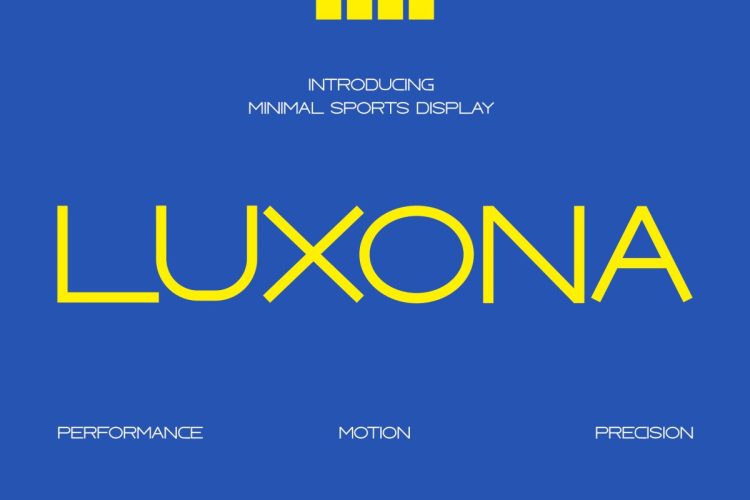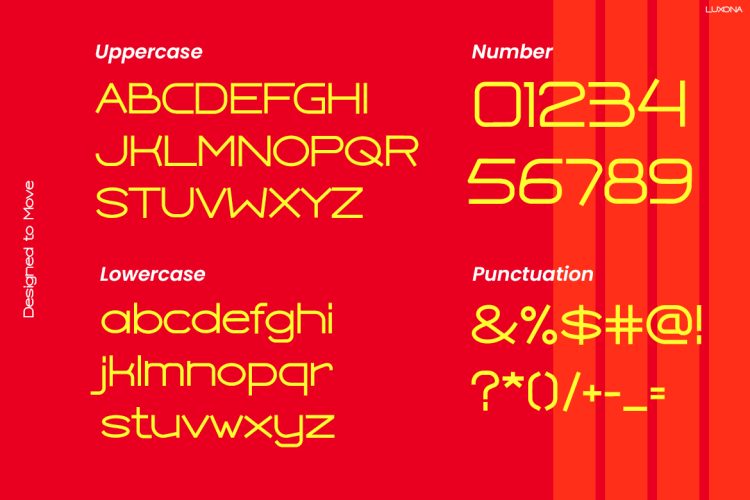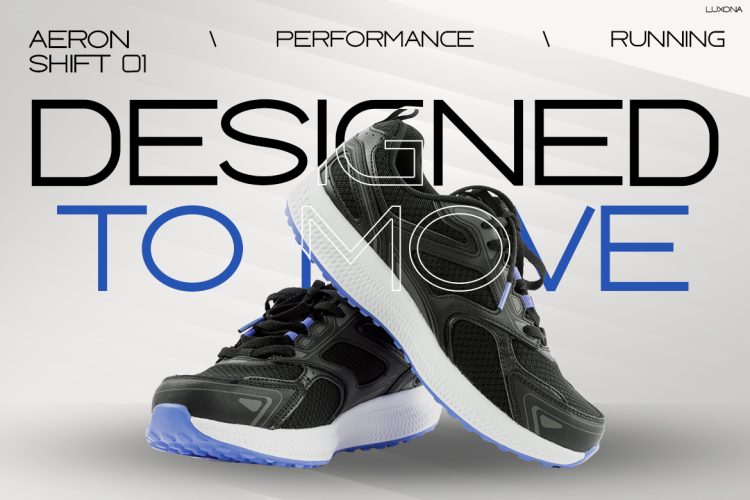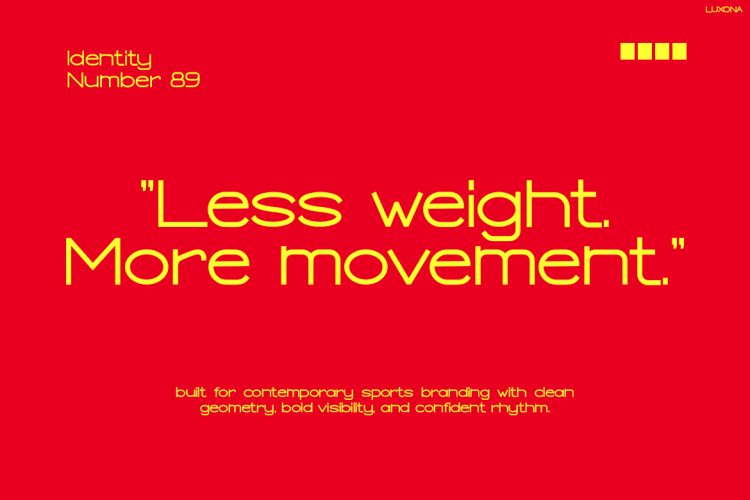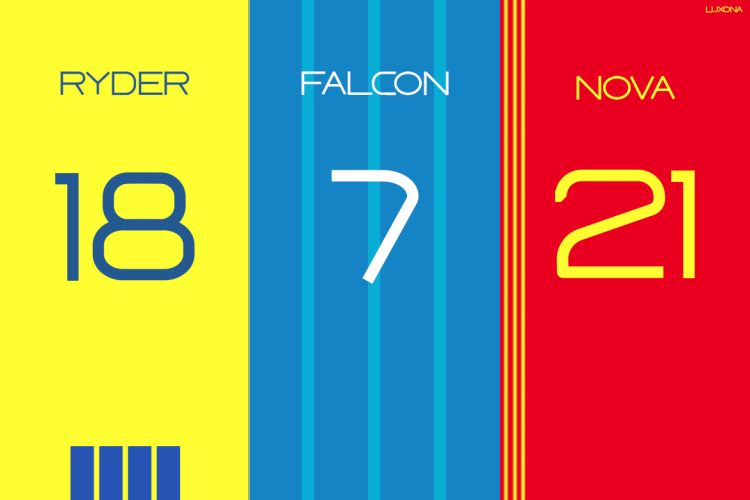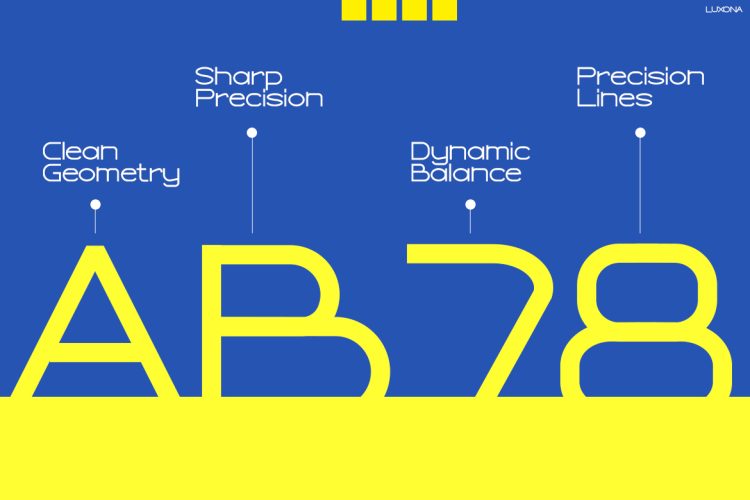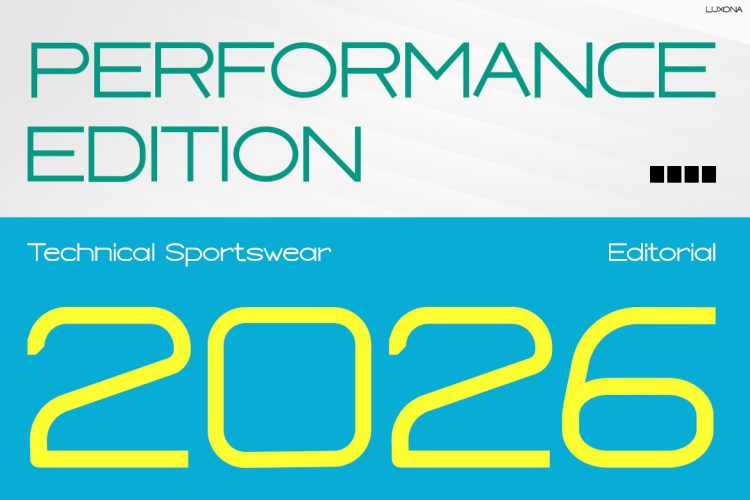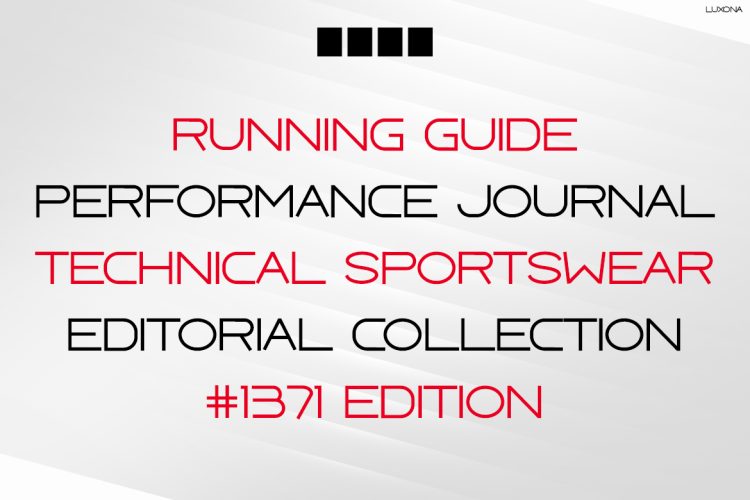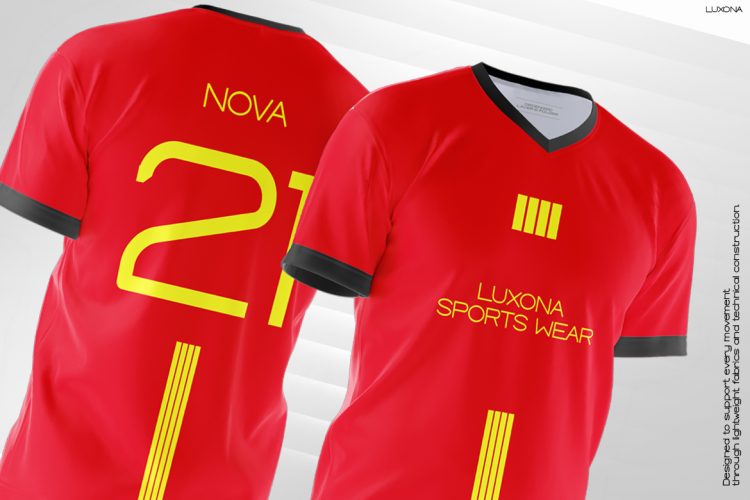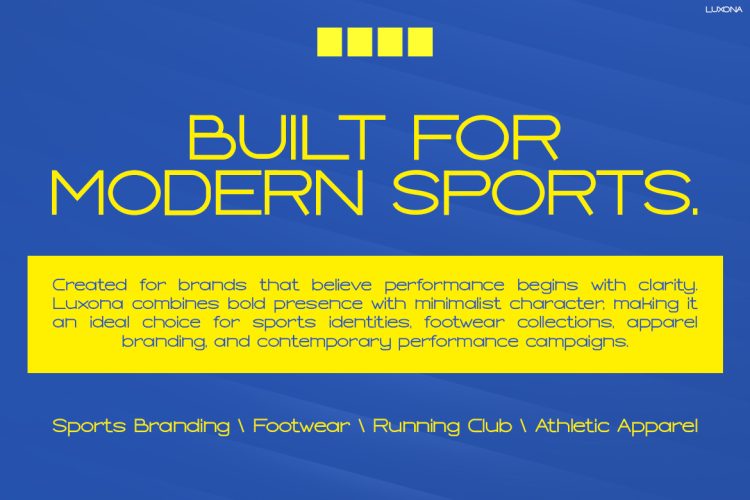
Sport Font Luxona โ Futuristic Athletic Typeface for Performance, Branding & Tech Sports
Sport Font Luxona is a sleek futuristic display font designed to express speed, innovation, and peak performance. From the very first glance, its geometric letterforms create a clean and high-tech appearance. Moreover, the sharp lines and balanced proportions deliver a modern athletic aesthetic that immediately captures attention. As a result, every headline feels bold, dynamic, and professional. At the same time, the streamlined structure keeps every word highly readable. Furthermore, Luxona performs beautifully across both digital and print media. Therefore, it is an outstanding choice for creators who want modern sports typography with maximum impact.
Why You’ll Love It
Sport Font Luxona is crafted for designers who value precision and performance. Not only does it strengthen logos and headlines, but it also creates a bold and memorable brand identity. In addition, its futuristic style is perfect for sports branding, fitness campaigns, athletic apparel, esports graphics, product packaging, posters, magazine covers, and social media content. Likewise, its minimalist construction pairs seamlessly with modern layouts. Meanwhile, the balanced proportions ensure a polished and professional appearance. Most importantly, every design feels energetic, innovative, and ready to compete.
Sport Font Luxonaย Perfect For
- Sportswear and athletic brands
- Fitness gyms and training programs
- Esports teams and gaming graphics
- Sports magazines and editorials
- Running events and competitions
- Technology branding and UI graphics
- Product packaging and advertising
- Modern logos and social media campaigns
Power Your Next Design
If you want your designs to look faster and more professional, Sport Font Luxona is the perfect choice. Furthermore, its futuristic style instantly enhances visual appeal. At the same time, its versatile letterforms adapt to countless creative projects. Consequently, your branding becomes stronger, cleaner, and more memorable. Finally, choose Luxona today and transform every headline into a bold statement of speed, innovation, and performance.